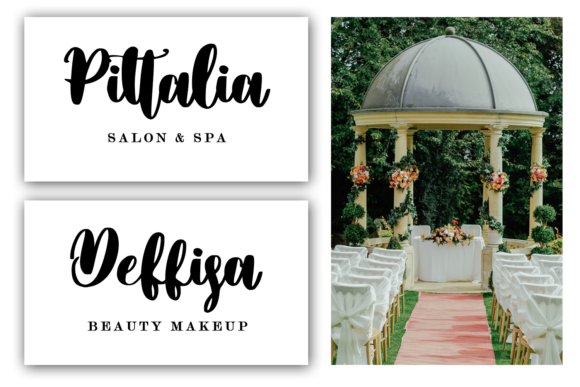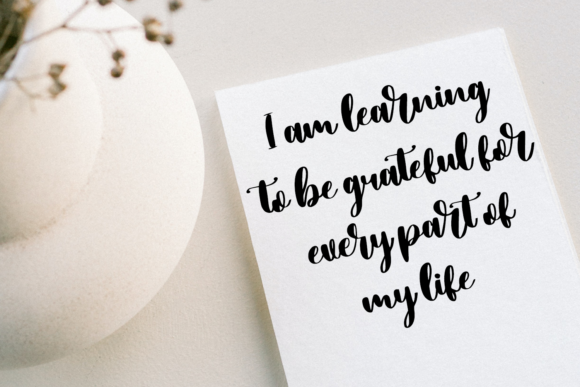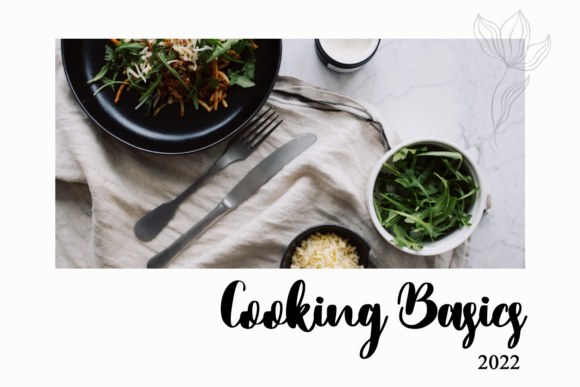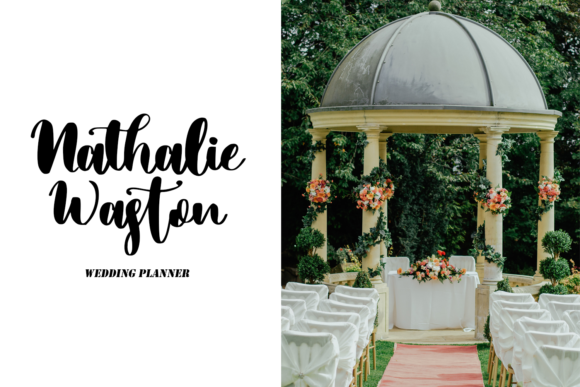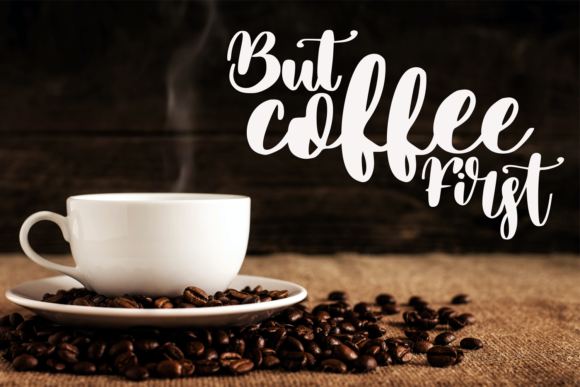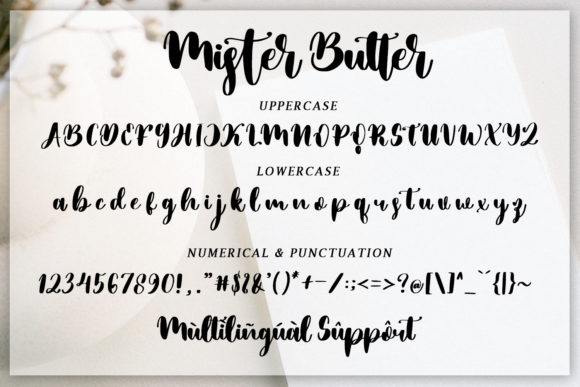
Introduction to Mister Butter Font
Mister Butter is a lovely and timeless handwritten font.
It has beautiful and well balanced characters and as a result, it matches a wide pool of designs It is the best choice for creating eye catching logos, branding and quotes.
Key Features of Mister Butter Font
Why Choose Mister Butter Font?